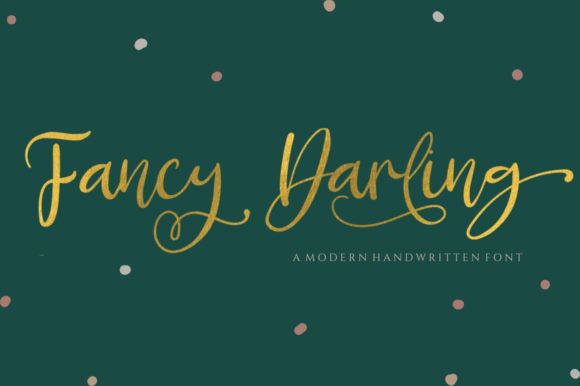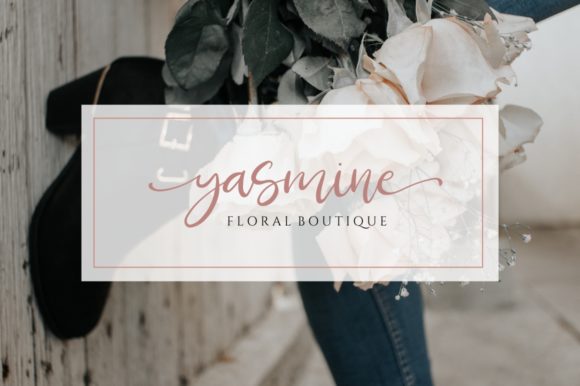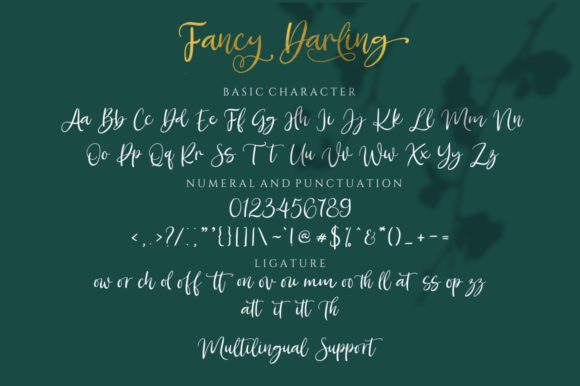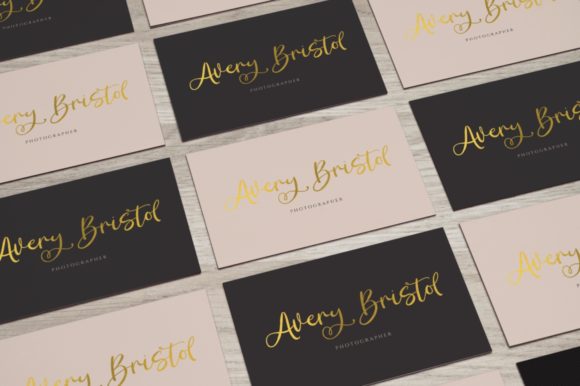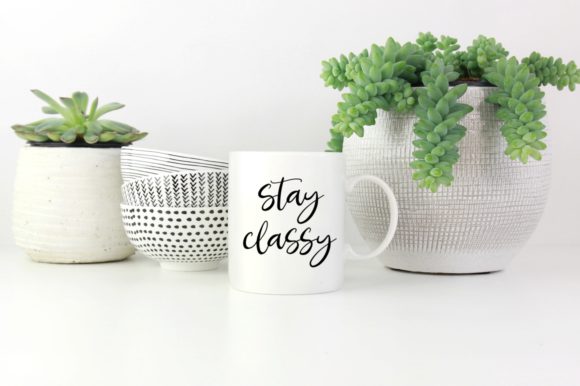
Fancy Darling Font
About Fancy Darling Font
Fancy Darling is a romantic and magical handwritten font. It looks stunning on wedding invitations, thank you cards, quotes, greeting cards, logos, business cards and every other design which needs a handwritten touch.